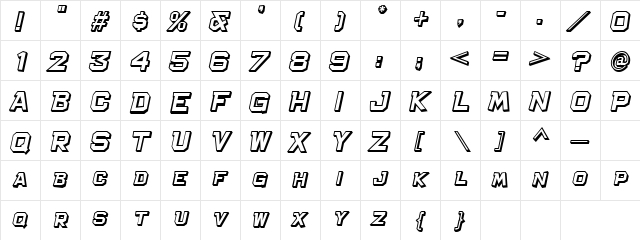
Bachelor Pad Shadow JL Italic
Design Context for Bachelor Pad Shadow JL Typeface
Bachelor Pad Shadow JL brings ornamental detail and strong personality to headlines and identities, where visual impact matters more than quiet functionality. The dynamic lean of this cut emphasises speed and emphasis in any layout.
Font Pairing: Pair with a clean neutral sans-serif for body copy to let Bachelor Pad Shadow JL's character lead without overwhelming the composition.
Pro Tip: Treat Bachelor Pad Shadow JL as the centrepiece of your typographic hierarchy. One strong heading set in a decorative face can carry an entire layout.